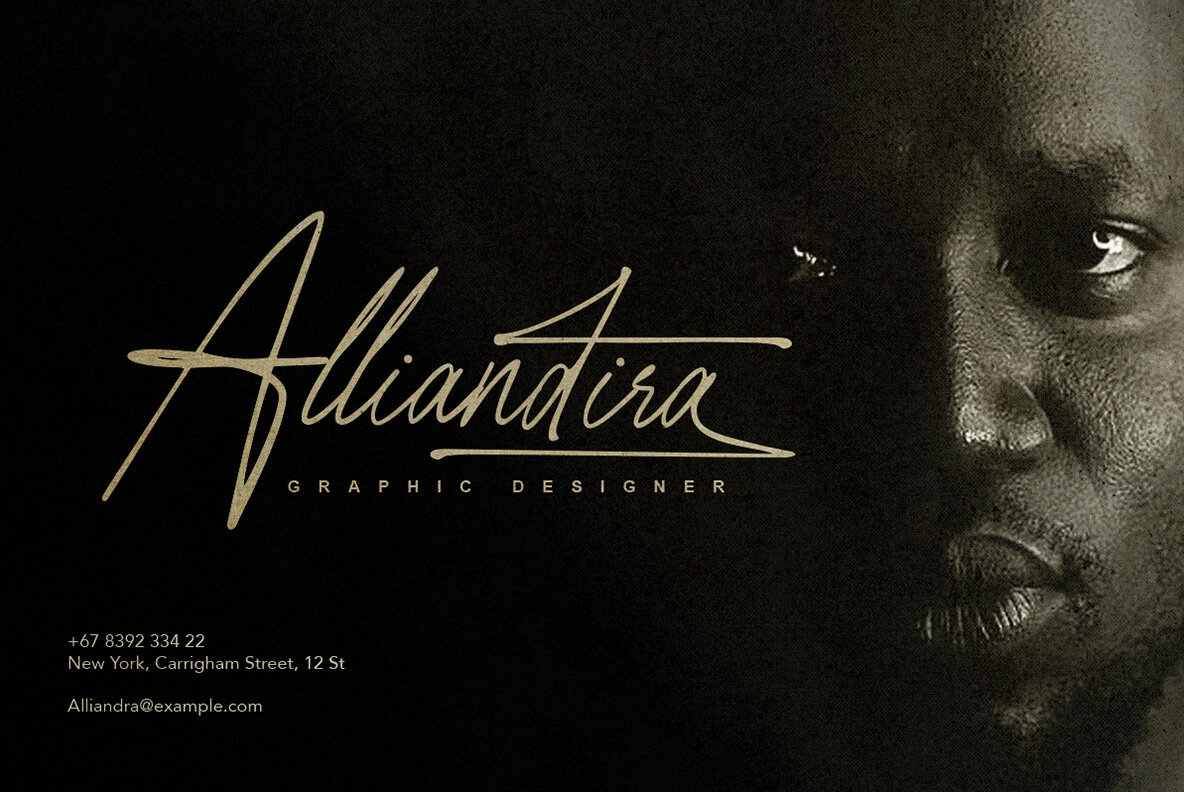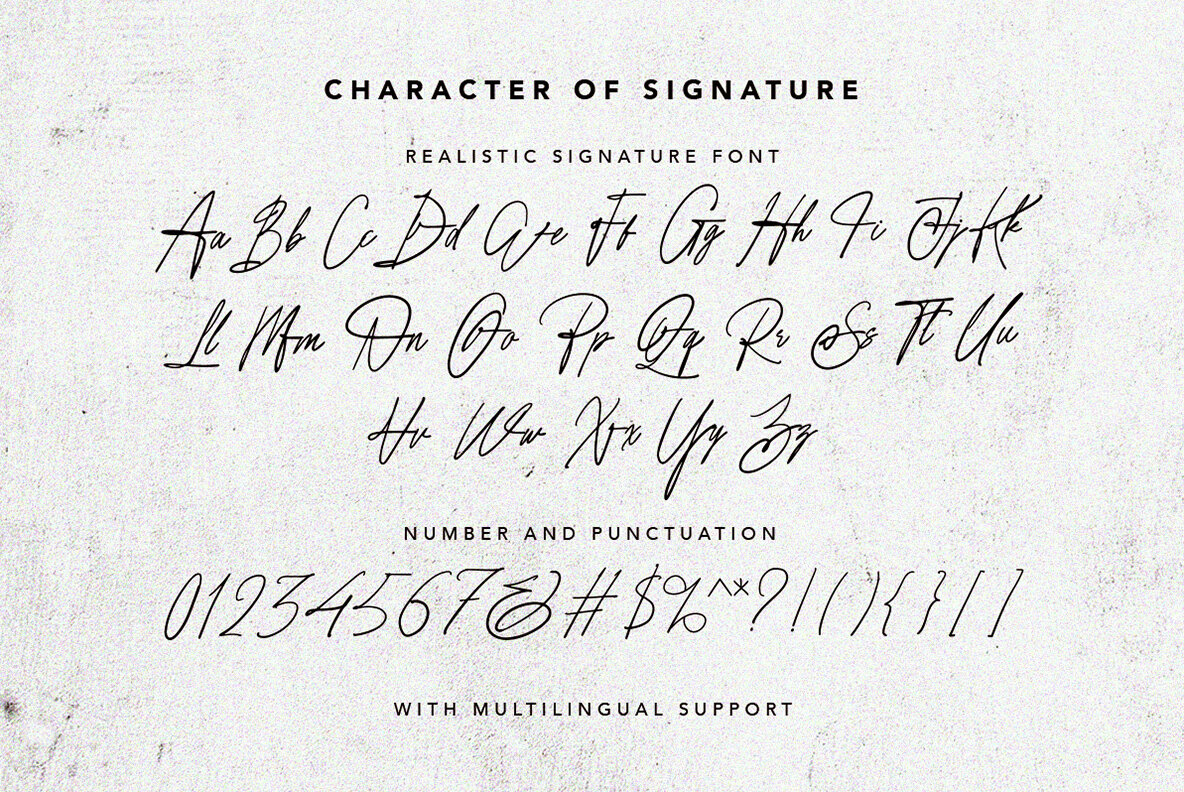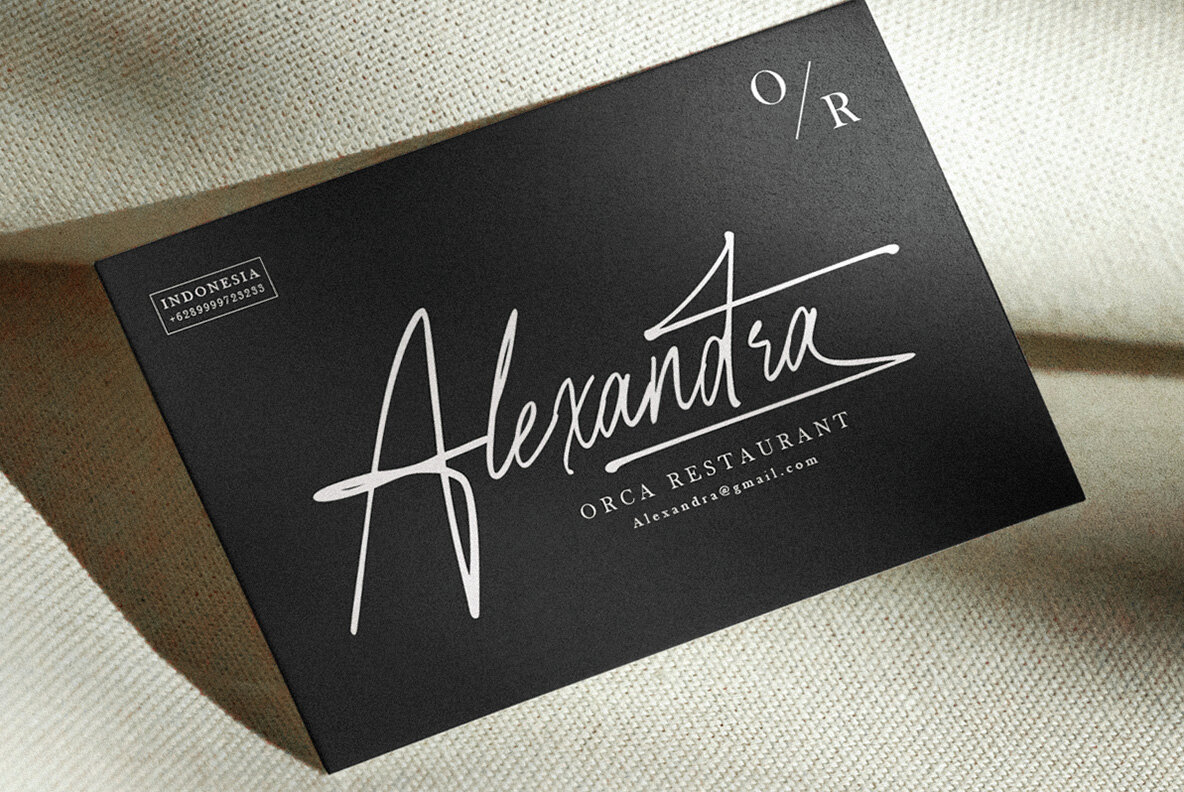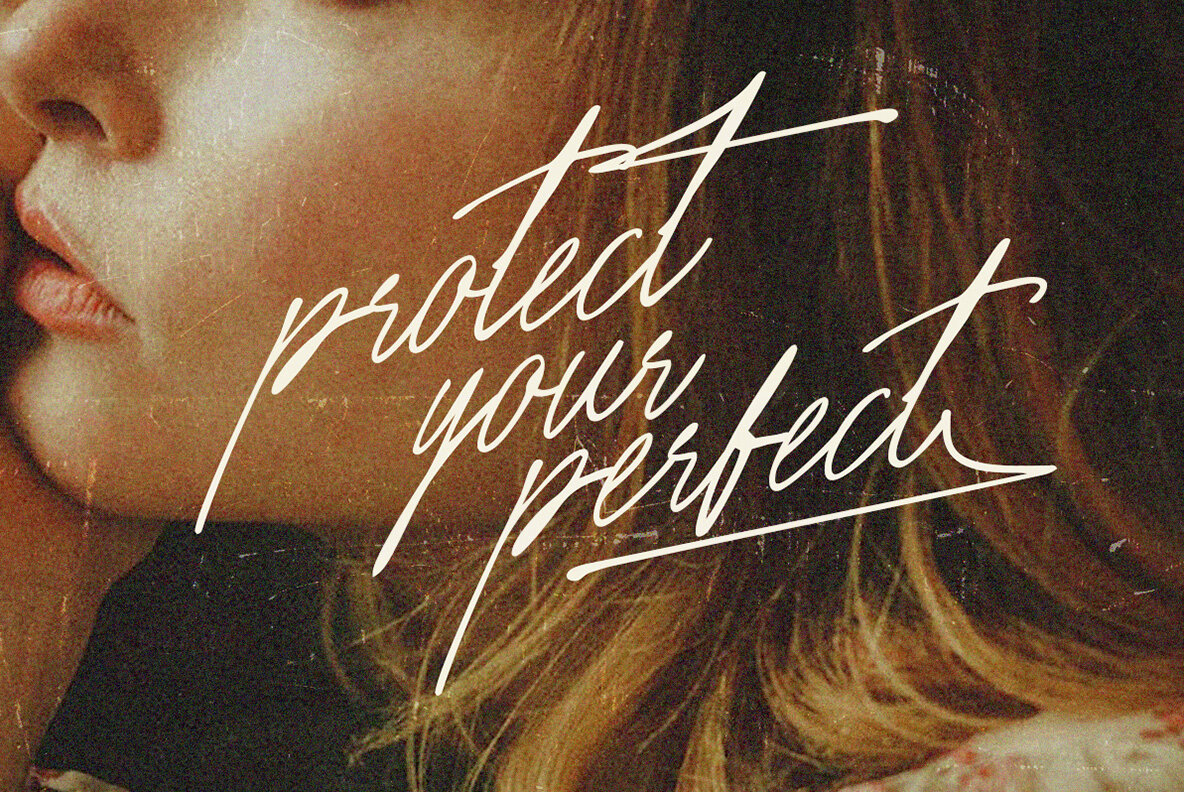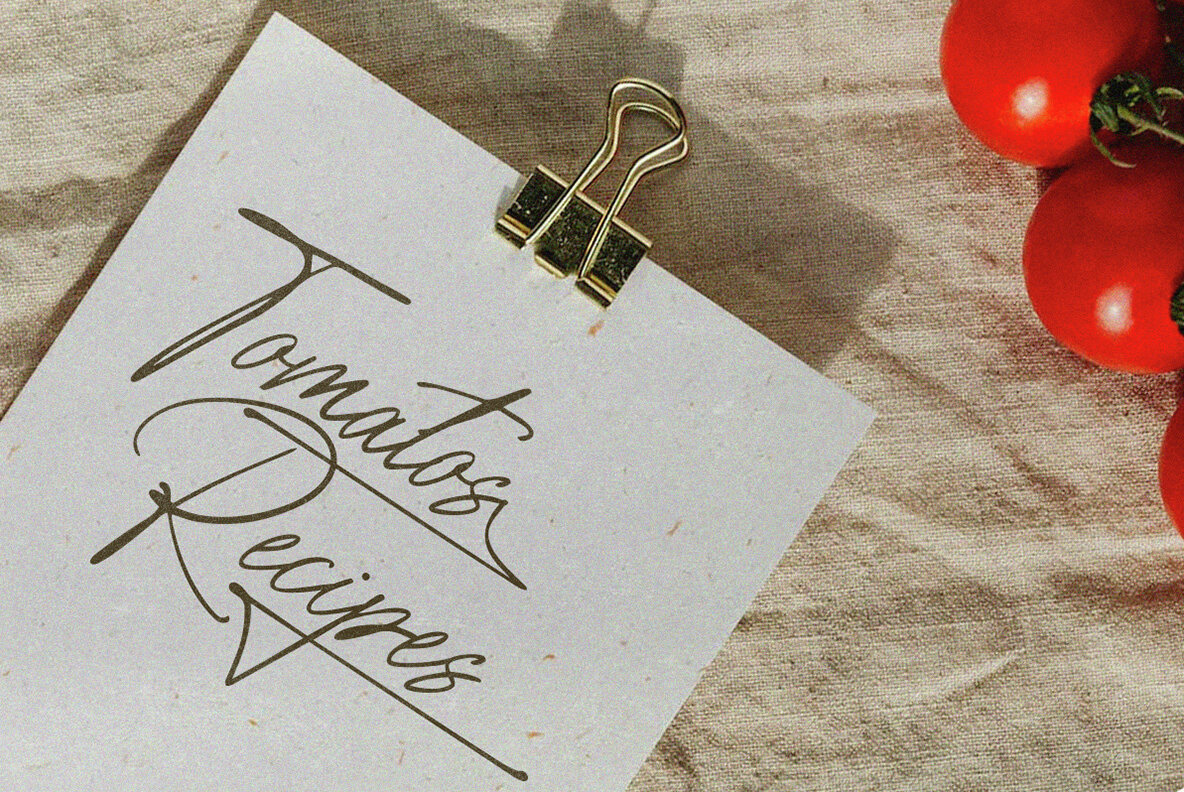
Raleigh Handwriting Font
Raleigh Handwriting Regular
Raleigh Handwriting is a signature script that will bring realistic handwriting for your projects. You can use this font for many purposes, such as wedding invitation, logotype, signature, and more. This font also support multi language!